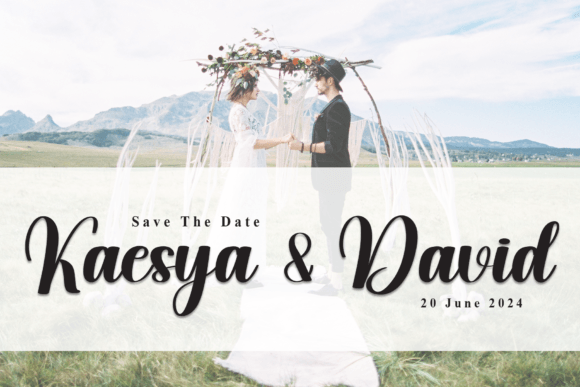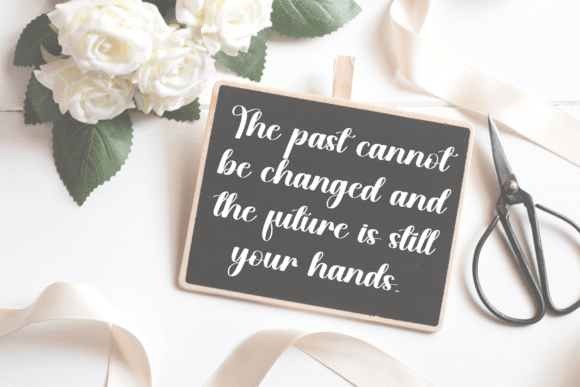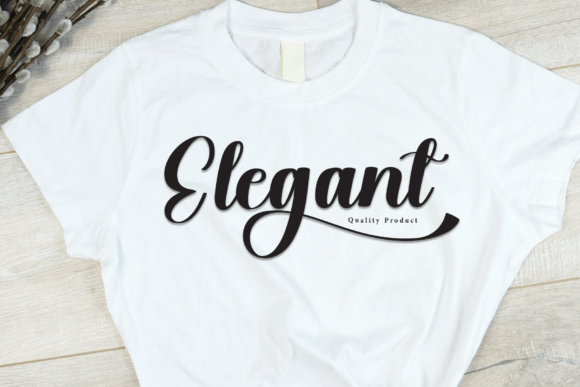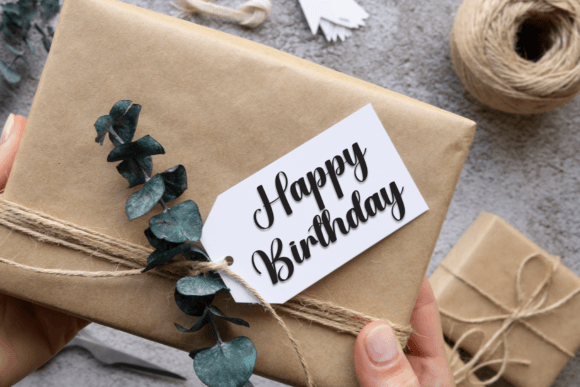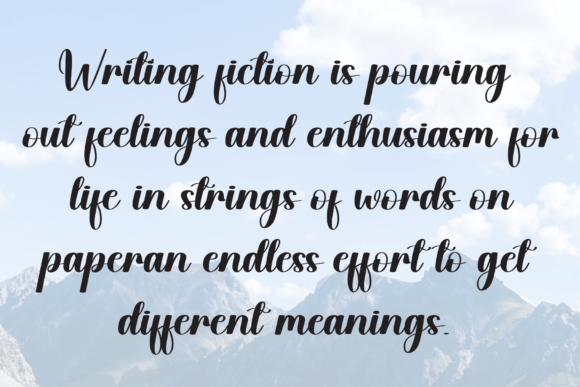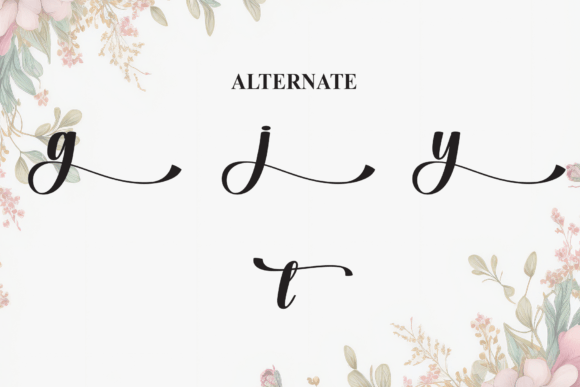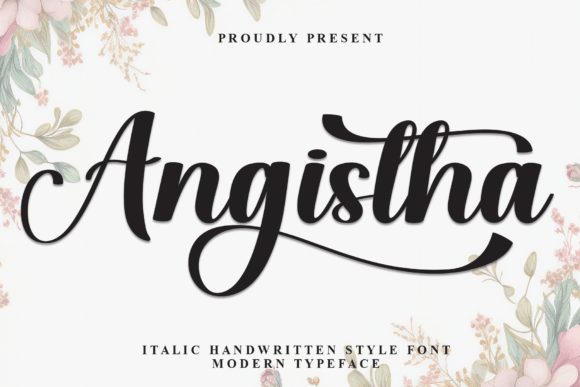
Introducing Angistha Font: Elevate Your Designs with Elegance and Sophistication
Are you a designer or crafter looking for a font that exudes elegance and sophistication? Look no further than Angistha Font. This stunning script font is perfect for adding a touch of refinement to your designs, making it ideal for wedding invitations, thank you cards, quotes, greeting cards, logos, business cards, and more.
What Makes Angistha Font So Special?
Angistha Font is a stylish and incredibly elegant script font that is sure to impress. Its beautiful, flowing lines and intricate details make it a standout choice for any design project that requires a handwritten touch. Whether you’re creating a romantic wedding invitation or a professional business card, Angistha Font is the perfect choice.
Key Features of Angistha Font
• Elegant Script Style: Angistha Font features a beautiful, cursive script style that adds a touch of sophistication to any design.
• Handwritten Touch: This font is perfect for designs that require a personal, handwritten touch, such as wedding invitations, thank you cards, and greeting cards.
• Versatile: Angistha Font can be used for a wide range of design projects, including logos, business cards, quotes, and more.
• Easy to Read: Despite its elegant style, Angistha Font is easy to read, making it perfect for designs that require a clear and concise message.
Angistha Font is a must-have for designers and crafters who want to add a touch of elegance and sophistication to their designs. Whether you’re creating digital designs or handmade crafts, this font is sure to impress. Here are just a few ways you can use Angistha Font:
• Wedding Invitations: Create beautiful, custom wedding invitations that set the tone for the big day.
• Thank You Cards: Add a personal touch to your thank you cards with Angistha Font.
• Quotes and Posters: Use Angistha Font to create stunning quotes and posters that are sure to grab attention.
• Logos and Branding: Use Angistha Font to create a professional logo or branding materials that exude elegance and sophistication.
• Greeting Cards: Create beautiful, custom greeting cards for any occasion.
Tips for Using Angistha Font
Here are a few tips for getting the most out of Angistha Font:
• Use it Sparingly: Angistha Font is a statement font, so use it sparingly to add emphasis to your designs.
• Pair it with Other Fonts: Pair Angistha Font with other fonts to create a unique and interesting design.
• Experiment with Colors: Angistha Font looks stunning in a variety of colors, so don’t be afraid to experiment.
Angistha Font is a stylish and incredibly elegant script font that is perfect for designers and crafters who want to add a touch of sophistication to their designs. With its beautiful, flowing lines and intricate details, this font is sure to impress. Whether you’re creating wedding invitations, thank you cards, quotes, greeting cards, logos, business cards, or more, Angistha Font is the perfect choice.